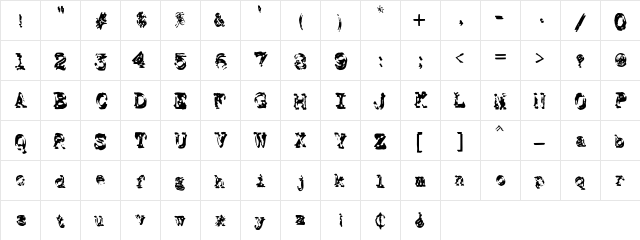
HotMetal TW Regular
Design Context for HotMetal TW Typeface
HotMetal TW is a composed and adaptable typeface that performs quietly and consistently across a wide range of design contexts.